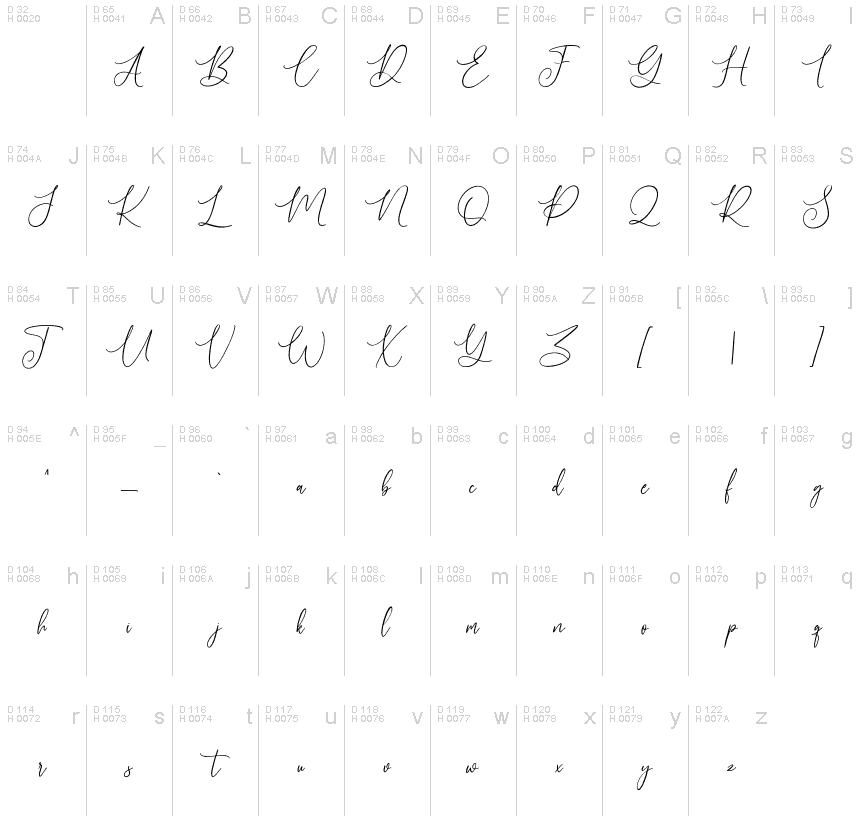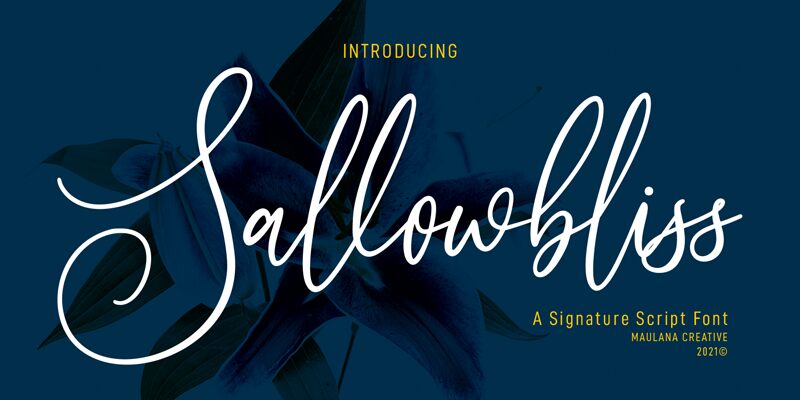
Sallowbliss Free Regular
Introducing Sallowbliss, a thin, handwritten signature font designed by Maulana Creative. This unique font is perfect for giving any project an elegant and personal touch - from wedding invitations to logos and quotes.